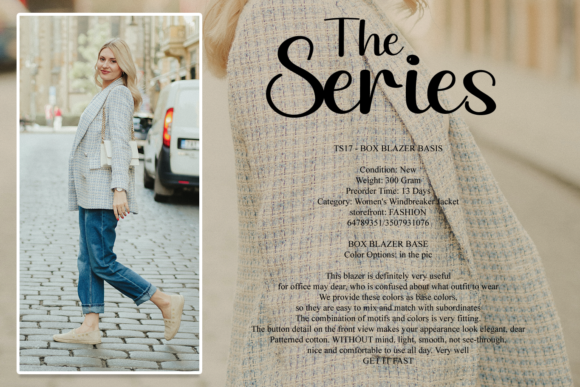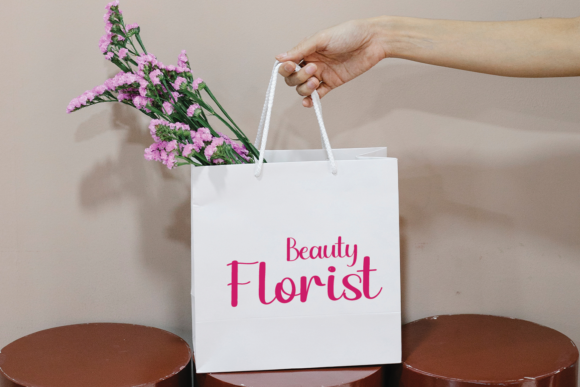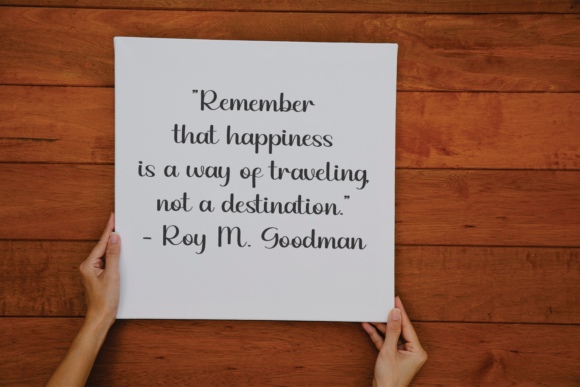
About Happiness Font
Happiness is a beautiful and refined script font. It has a classy, elegant, and modern look that can be used for logos, branding, invitations, stationery, wedding designs, social media posts, and much more!